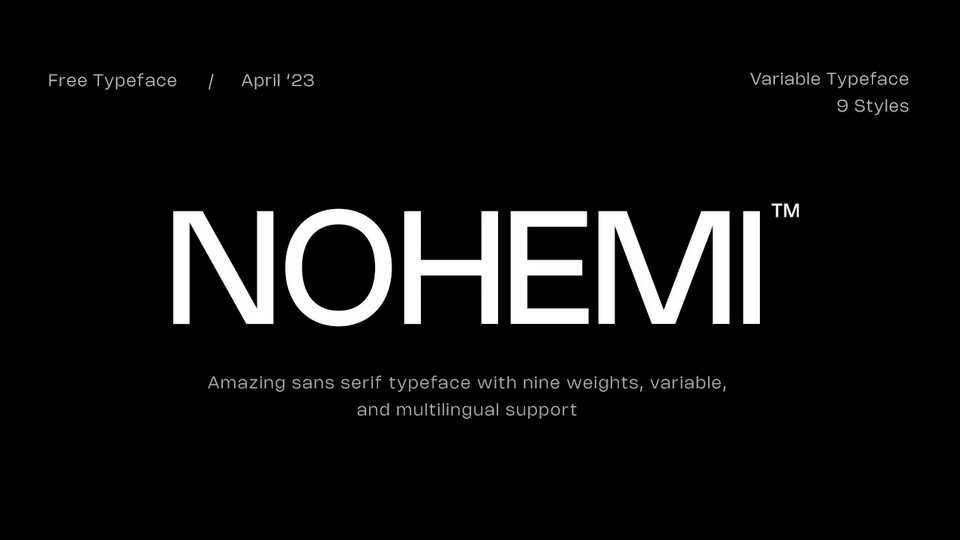
Download NOHEMI™ font, a universal sans serif typeface with nine weights. NOHEMI™ font has neutral design and subtle character and is suitable for diverse projects, from branding and advertising to editorial and product design.
Designer: Rajesh Rajput